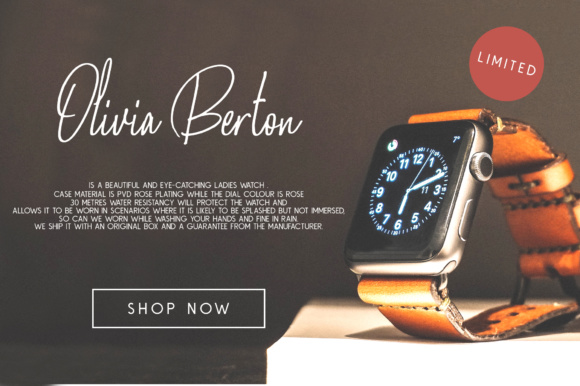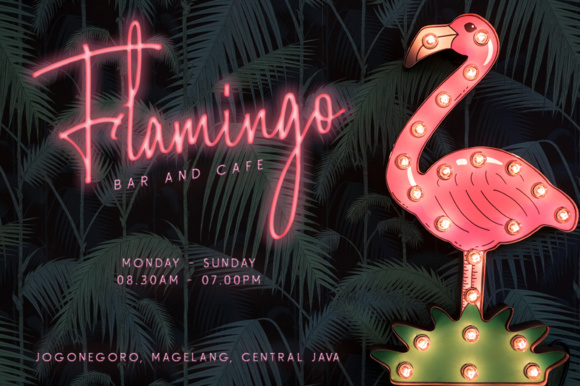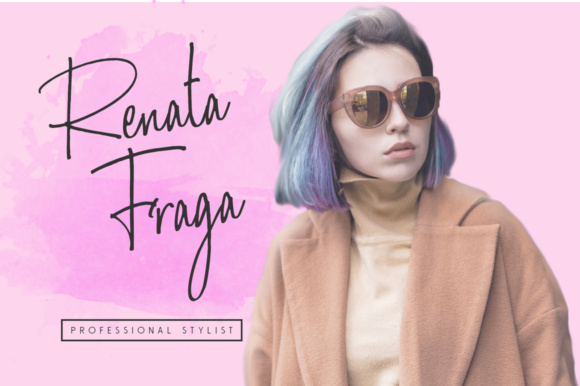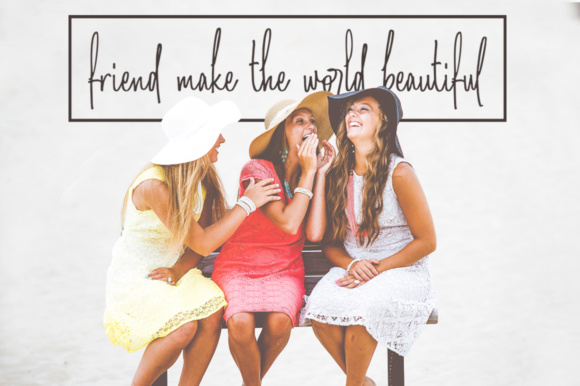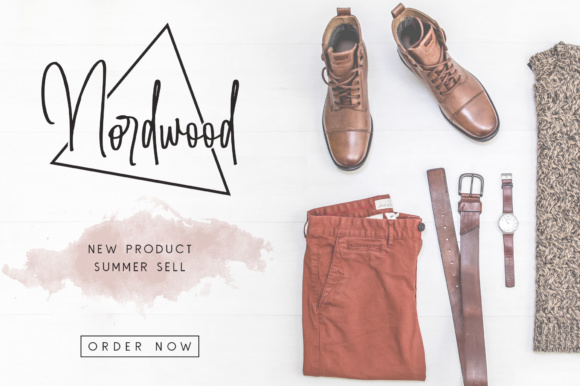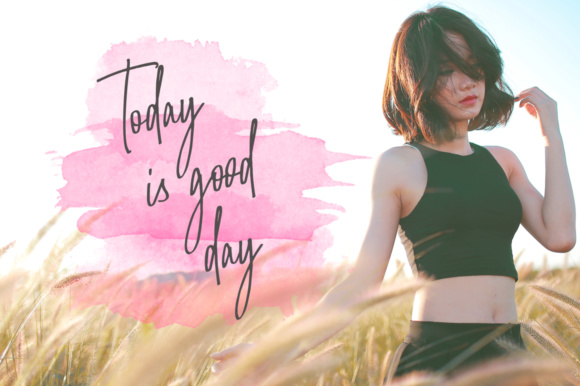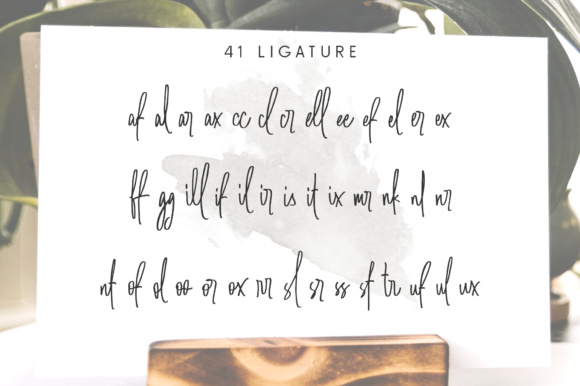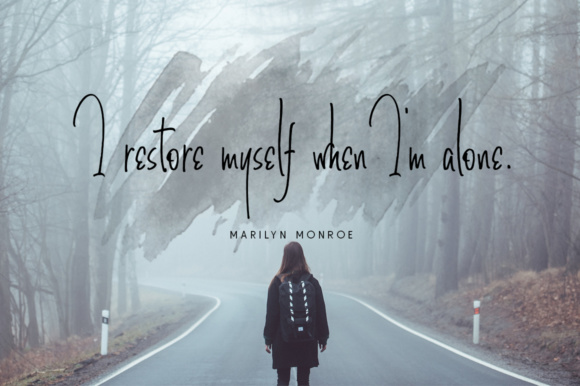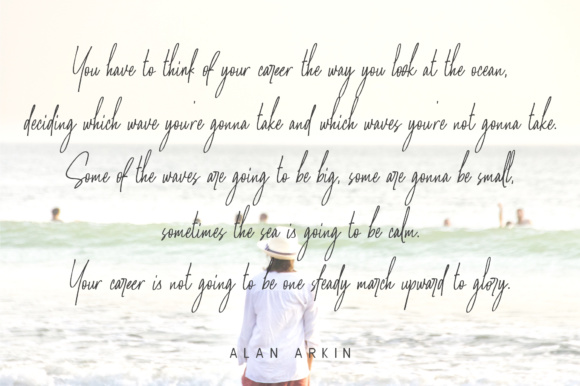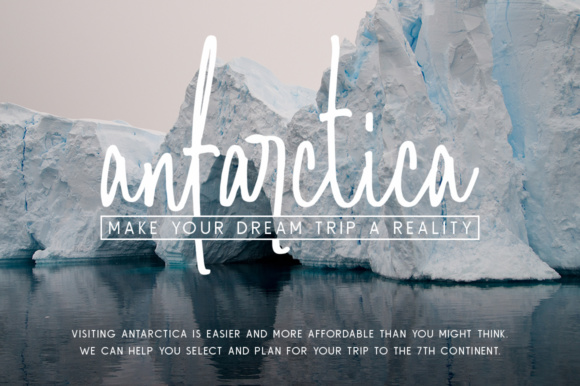
Amanda Santiago Font
About Amanda Santiago Font
Amanda Santiago is a beautiful script font that gives your design an authentic and handcrafted look. It comes in 5 styles, all perfect for signatures, logotypes, wedding invitations, quotes art, website headers, and much more!